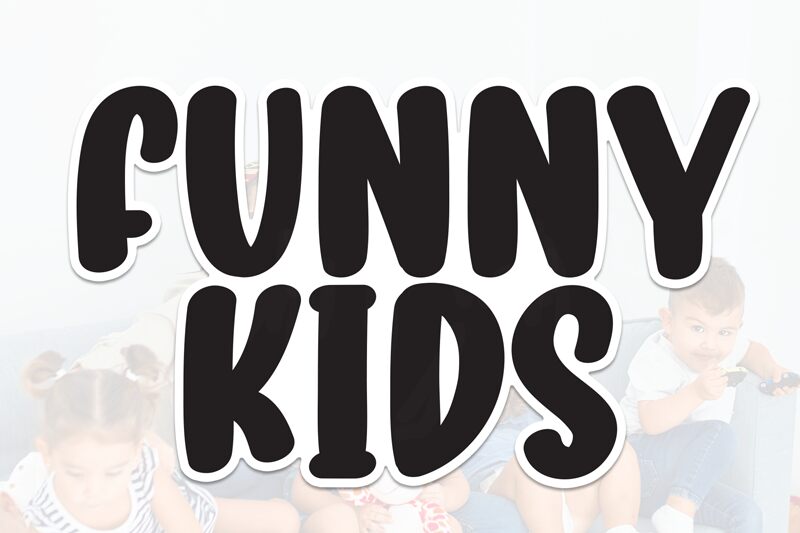
Funny Kids
Funny Kids font by Scratchones is a free cartoon display typeface that brings chunky, rounded letterforms with a hand-inked wobble. The strokes feel soft and bouncy—like foam stickers—so headlines pop without sharp edges or stiffness. Its tight rhythm and generous curves create instant warmth, making text feel friendly and approachable at a glance.
Using Funny Kids, you’ll get cheerful energy for birthday invitations, classroom posters, toy packaging, storybook covers, camp flyers, and YouTube thumbnails. This free font holds up at large sizes and stays legible in short bursts of text. For balance, pair it with a clean rounded sans for body copy and let Funny Kids take the headline spotlight.